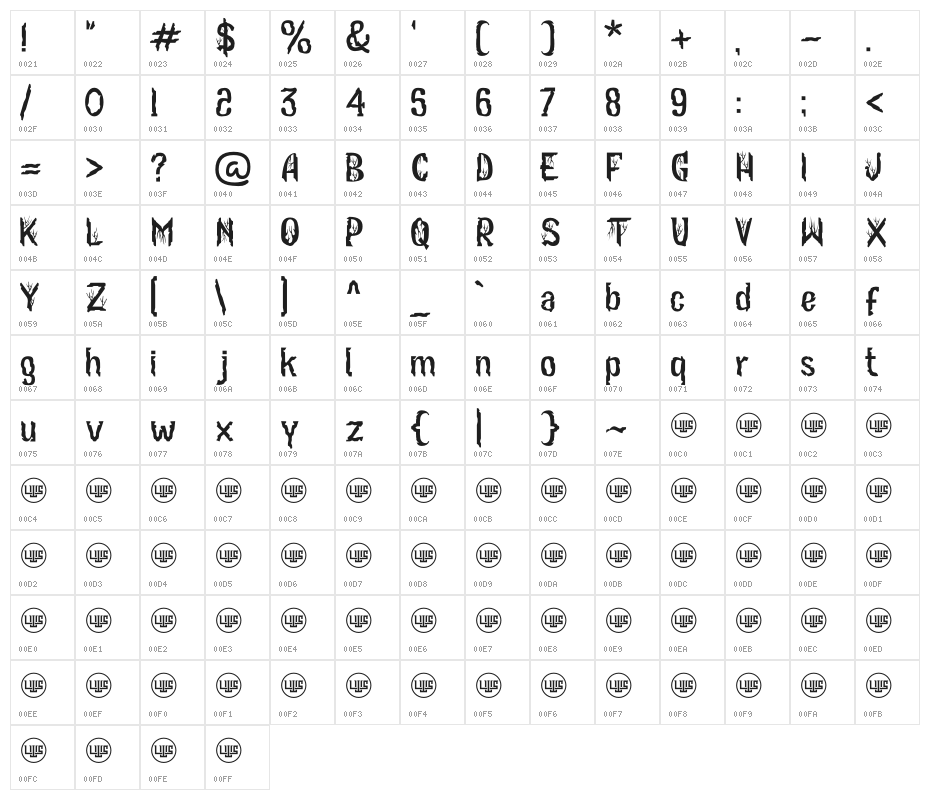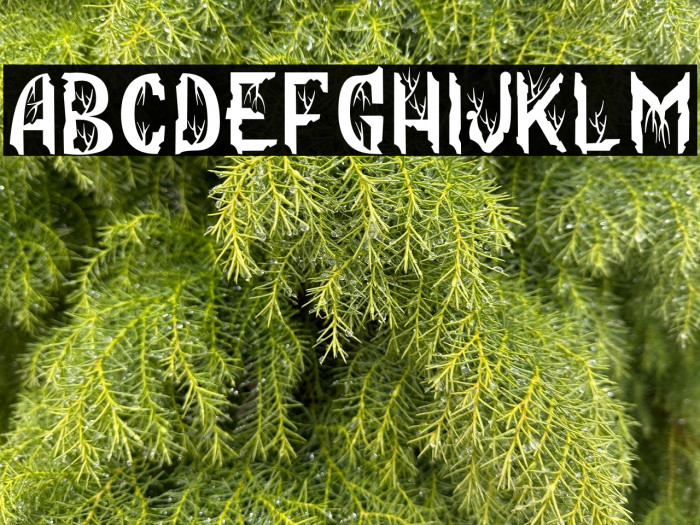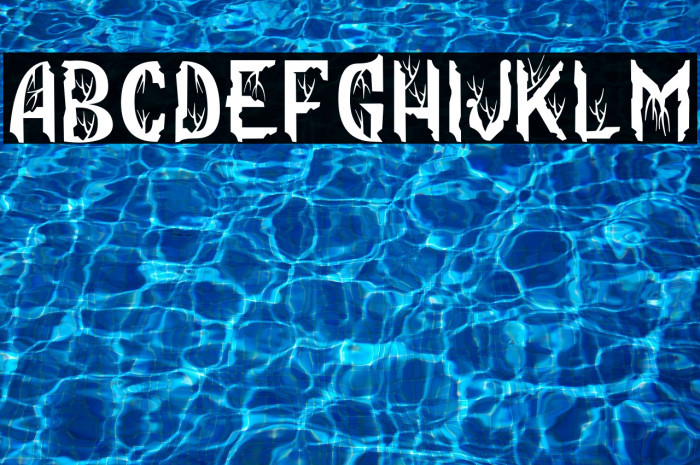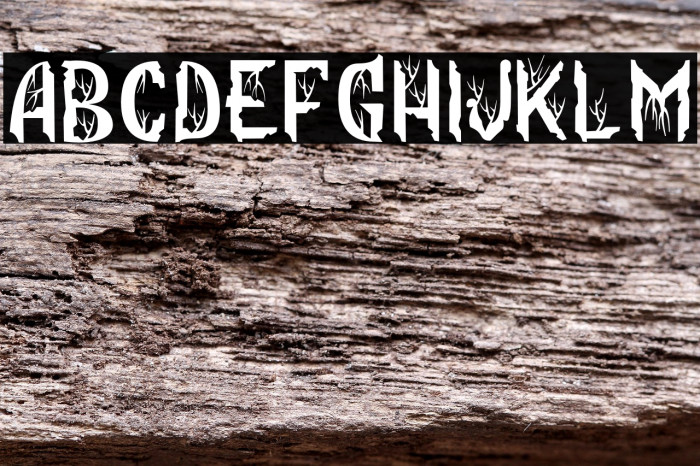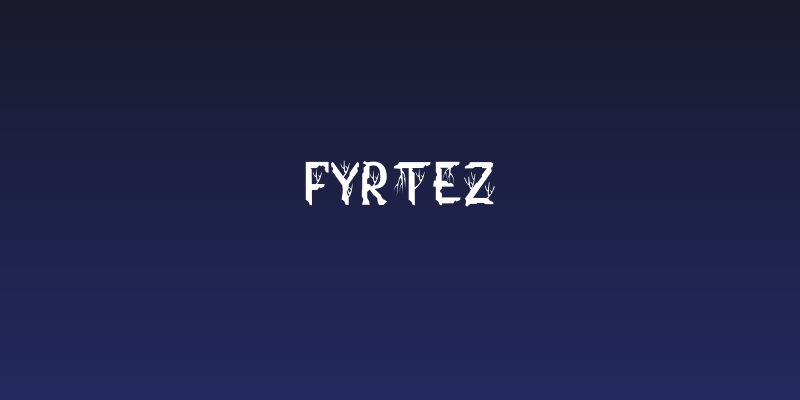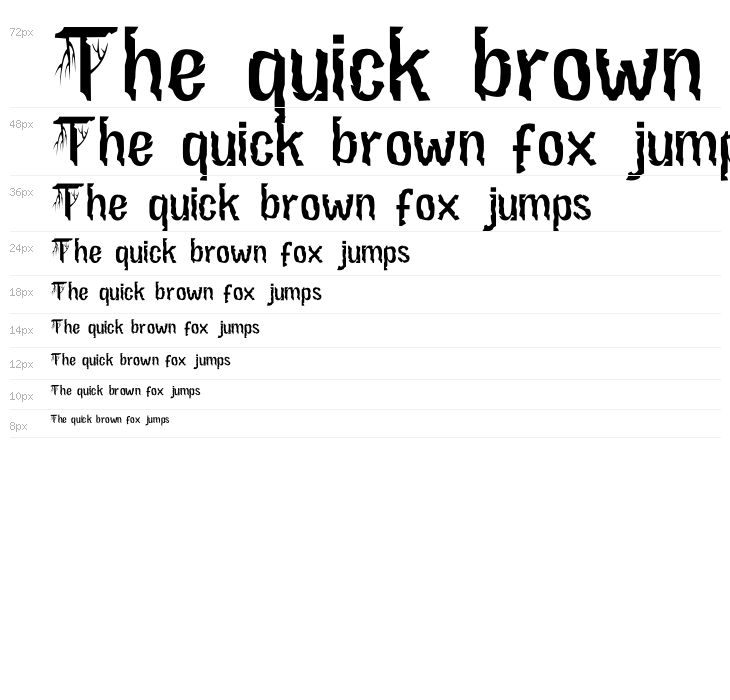
FYRTEZ Font
FYRTEZ Description
This font features a unique and eerie design, with each character incorporating elements that resemble tree branches or roots, giving it a haunting, organic appearance. The uppercase letters are particularly striking, with sharp, angular lines and intricate details that evoke a sense of mystery and nature. The lowercase letters maintain this theme, though they are slightly more subdued, offering a balance between readability and style. The numbers and special characters are consistent with the overall aesthetic, making this font ideal for projects that require a distinctive and atmospheric touch.
| Use Case | Headlines, Posters, Logos |
| Proposed Projects | Ideal for Halloween-themed designs, horror movie posters, or any project needing a spooky, natural aesthetic. |